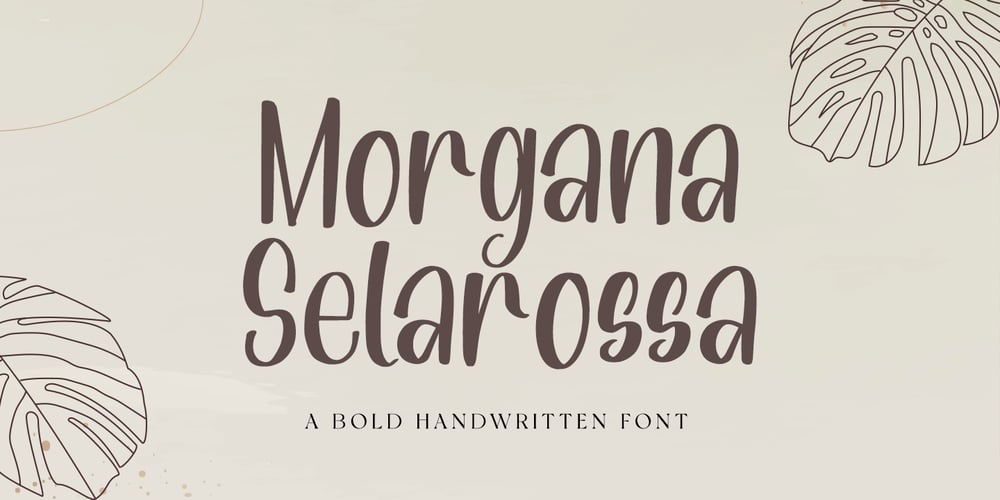
Morgana Selarossa Font Family was designed by Novia Himatunnisa and published by Nissa Nana. Morgana Selarossa contains 1 styles and family package options. Morgana Selarossa is a chic and whimsical handwritten font. It is the best choice for creating eye catching logos, branding and quotes. Every letter has a unique and beautiful touch, which will make your design come alive!